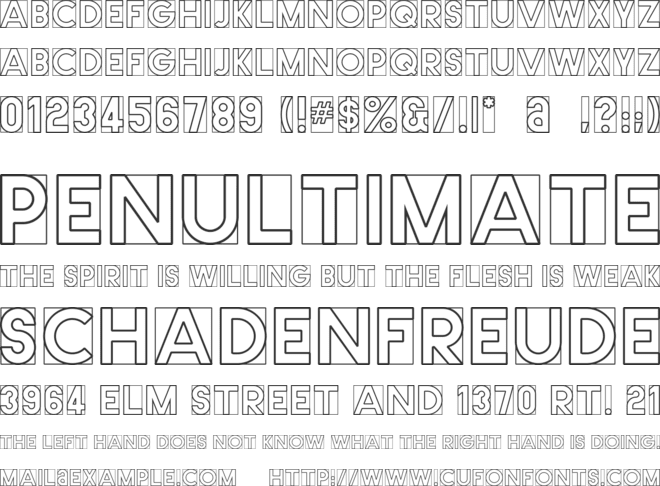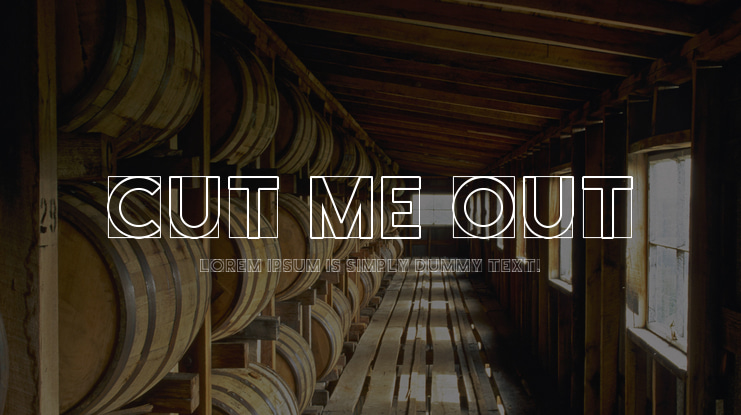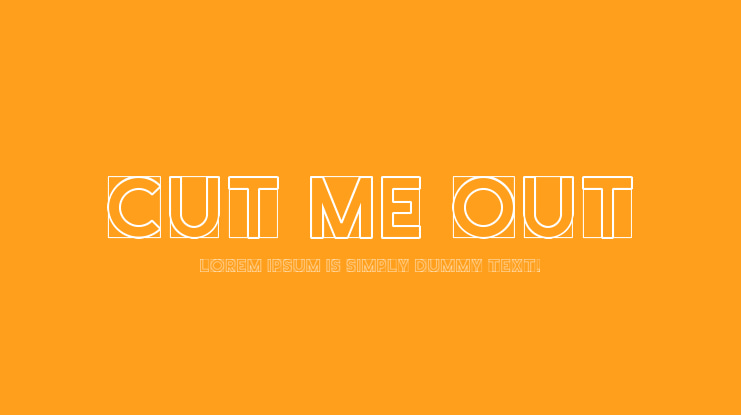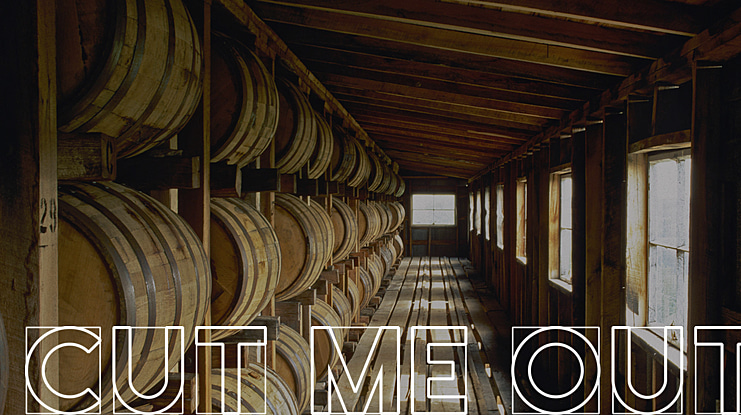
Cut Me Out Font Family
Peter Wiegel
Translated from the original German description: In the 1930's my mother had bought a small textbook: The "small poster school". In this book there are some instructions for various poster writings of that time, which begin with a very simple block letters. Here, the design of the letters with ruler and compass was shown how much poster board you need, and how to cut out the cardboard from. I have these drawings modeled completely, and so the name was practically given: Cut Me Out! - Oh yes, the other fonts I will probably also digitize sometime...